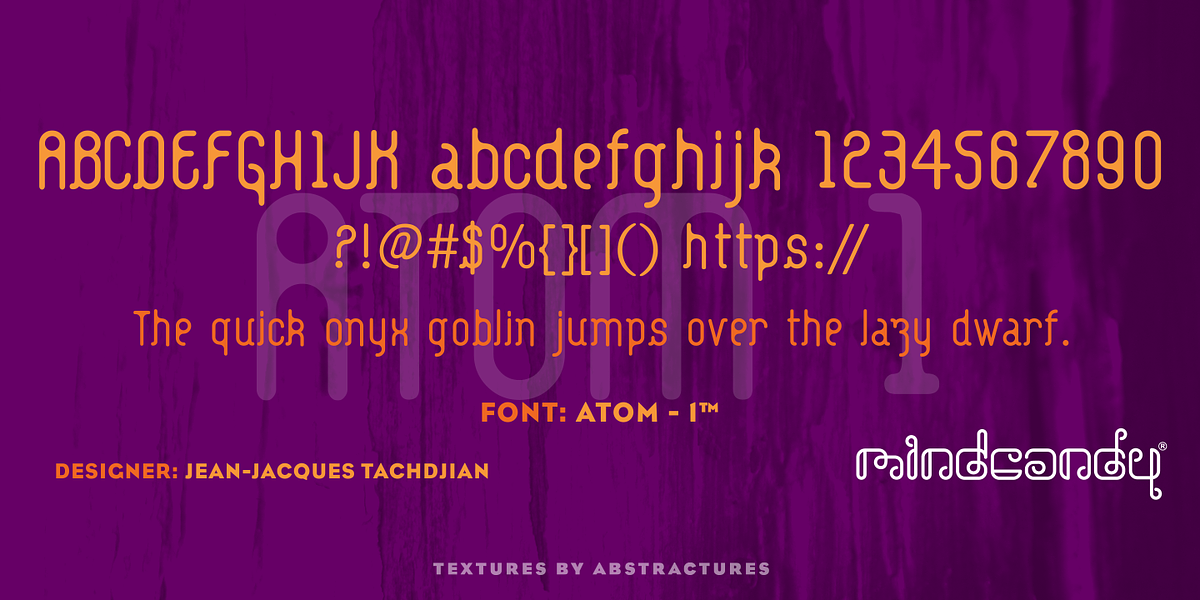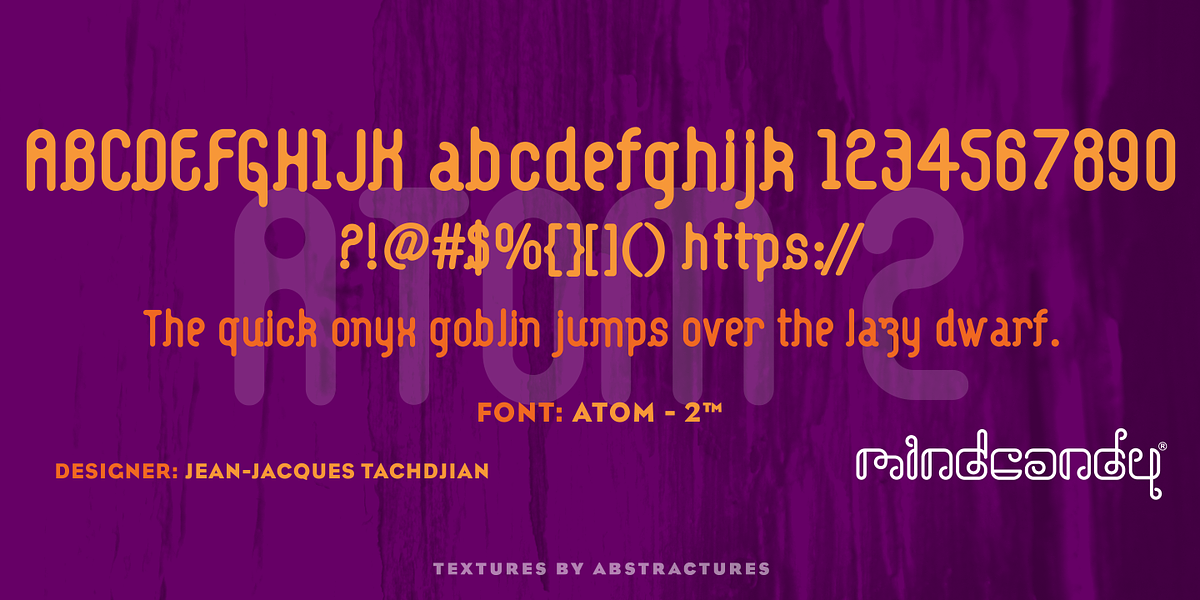
Atom™
Atom™ is a unique geometric sans serif font designed by Jean-Jacques Tachdjian. It features rounded characters and a condensed design, giving it a distinctive post-modern feel. The Atom™ font family includes two fonts - Atom™ 1 and Atom™ 2 - each with its own unique design but sharing a similar style that makes them ideal for use together.